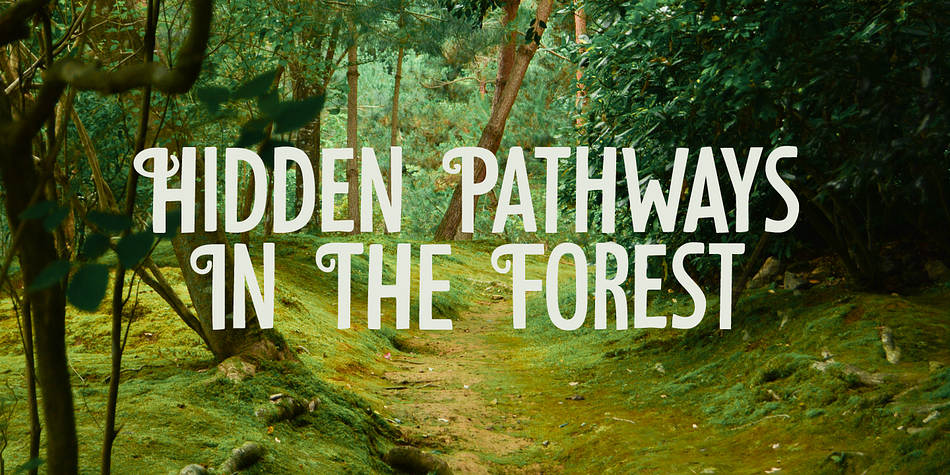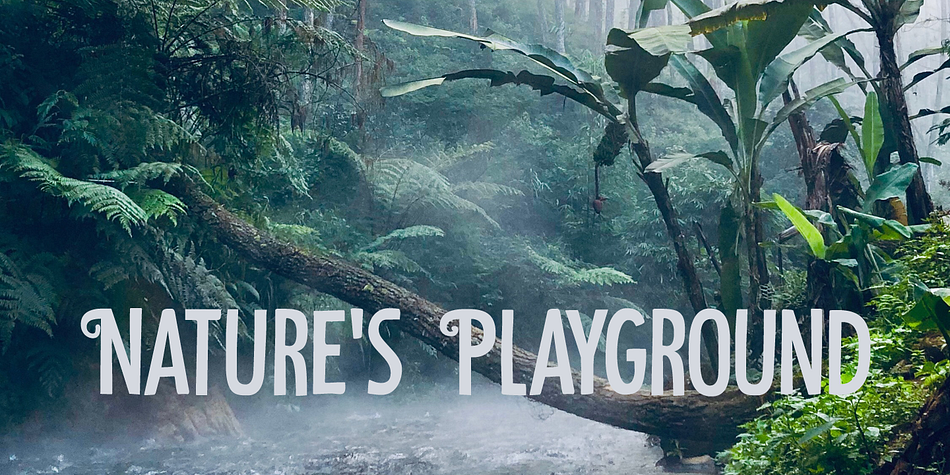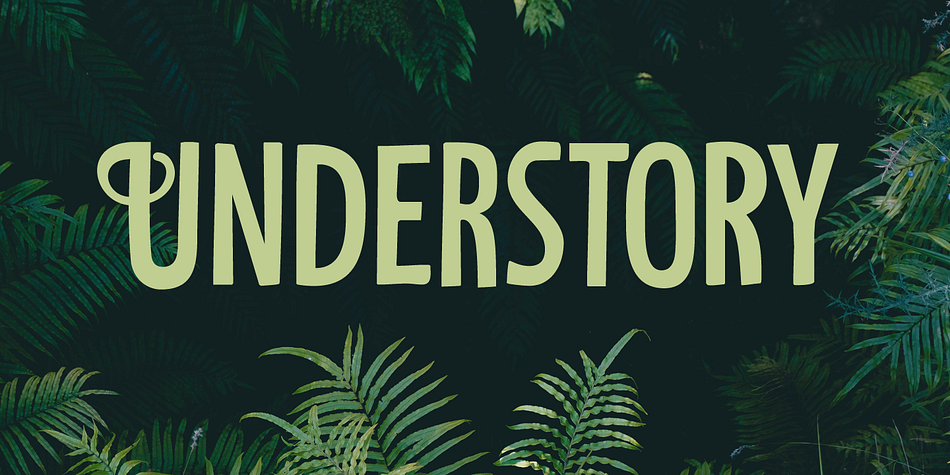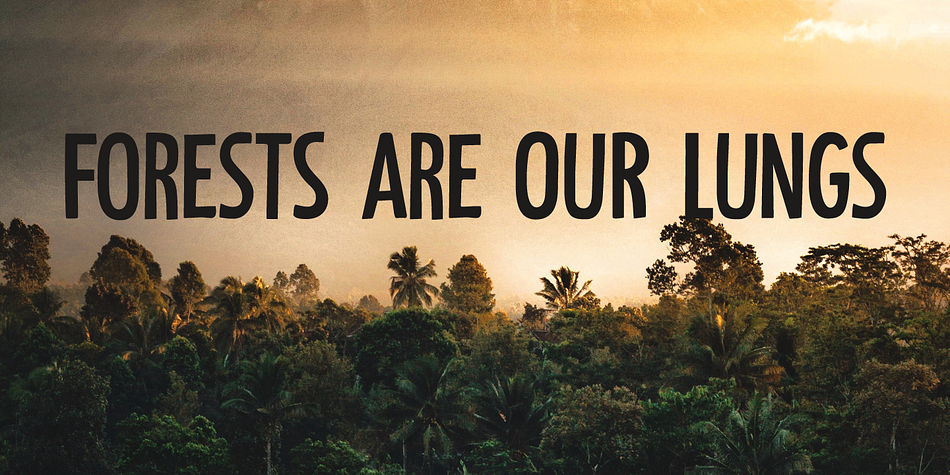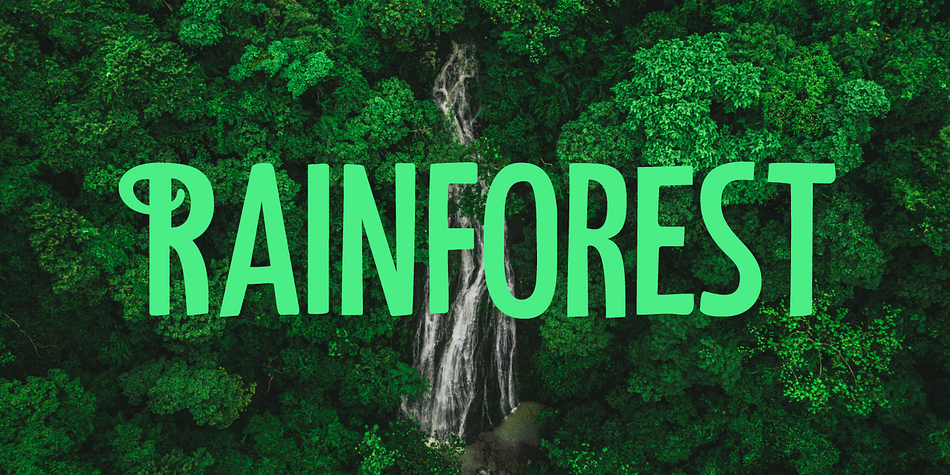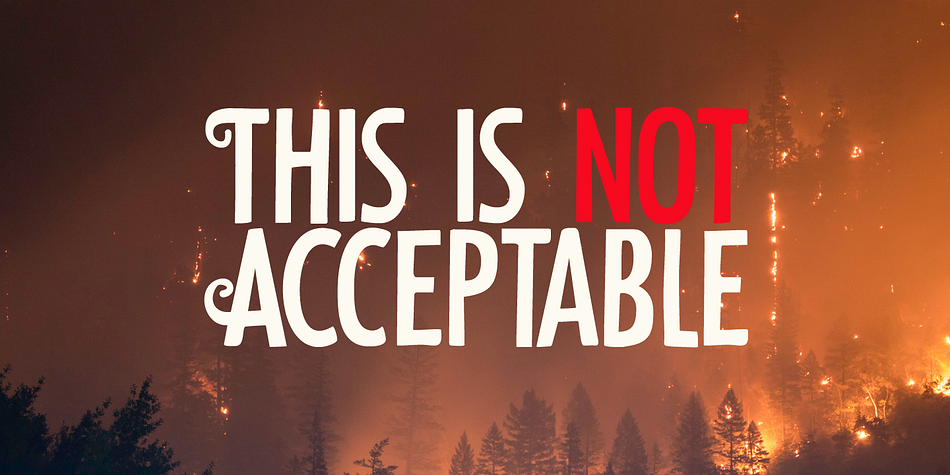
Designed by David Kerkhoff, Understory is a hand display font family. This typeface has two styles and was published by Hanoded.
Lately I feel reluctant to watch the news: The Amazon Forest is burning, Australian forests are burning, palm oil controversy… It really brings tears to my eyes to see all this destruction around me. It is like people hate nature with a vengeance - I cannot explain it otherwise.
I made this font to take my mind off things. It was loosely based on Futura, a font I really like.
Understory was completely made by hand. It comes with some cute upper case swashes and a whole bunch of diacritics. The good thing is: no trees were cut down or burned to make this font; in fact, I donated a nice amount of $ to help save the rainforests!